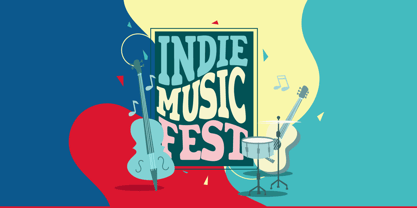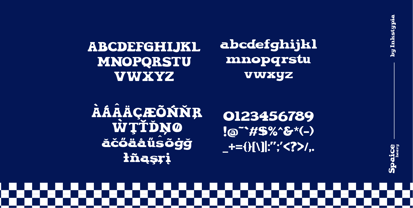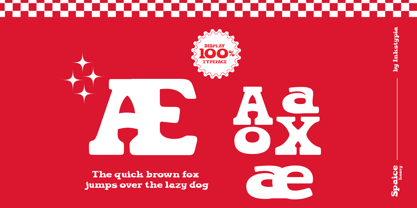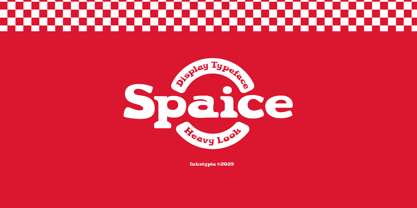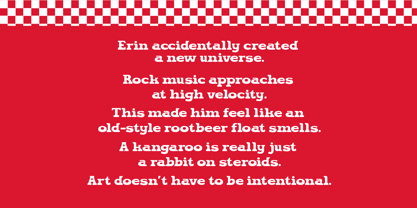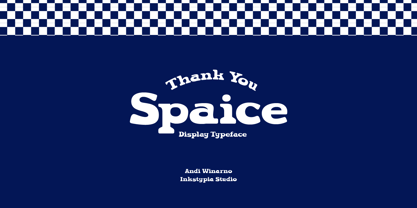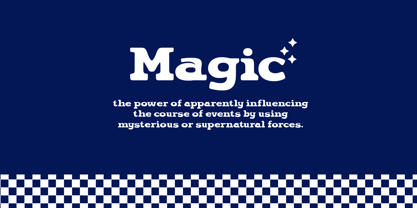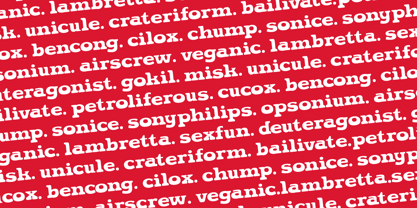
Spaice
The Spaice Font Family was designed by Andi Winarno and published by inkstypia. Spaice contains 1 styles. More about this family
Spaice Heavy - Perfect for Headlines, Branding, and Posters
Elevate your design projects with our Spaice Heavy Font, a striking typeface that combines vintage charm with modern boldness. This font features thick, heavy-weight characters that instantly grab attention, making it ideal for headlines, brand names, posters, logos, packaging, and social media graphics.
Inspired by the bold typography of the retro era, this font brings a nostalgic yet timeless vibe to your creative work. Its strong and impactful design ensures your message stands out, whether you're designing for vintage-themed projects, modern branding, or eye-catching advertisements.
Key Features:
Bold and Heavyweight Design: Perfect for creating a strong visual impact.
Retro Aesthetic: Adds a classic, nostalgic touch to any project.
Versatile Usage: Great for titles, logos, posters, merchandise, and more.
Easy to Read: Clear and legible even at larger sizes.
Multilingual Support: Compatible with various languages and special characters.